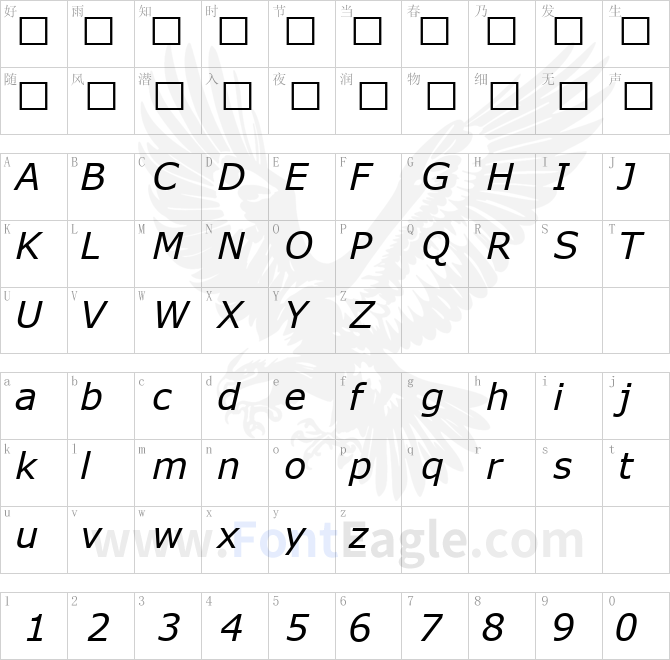
- Font name:Verdana
- Font Subfamily ID:Microsoft:Verdana Italic:Version 1 (Microsoft)
- Font Full Name:Verdana Italique
- Font Version:Version 2.35
- Postscript:Verdana-Italic